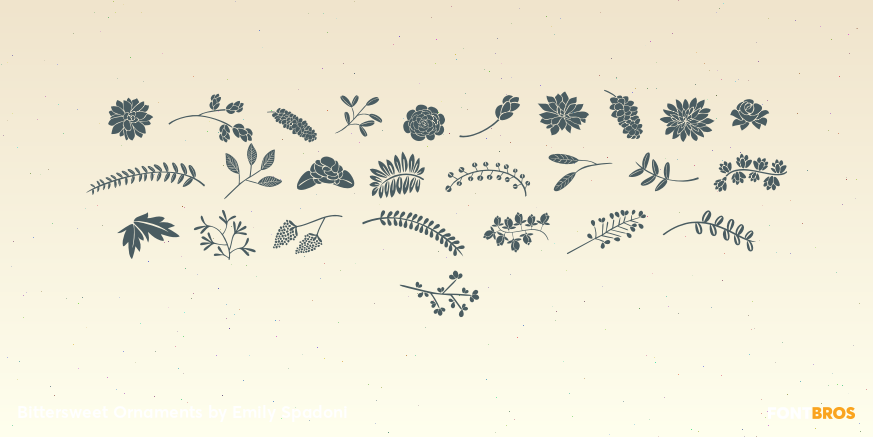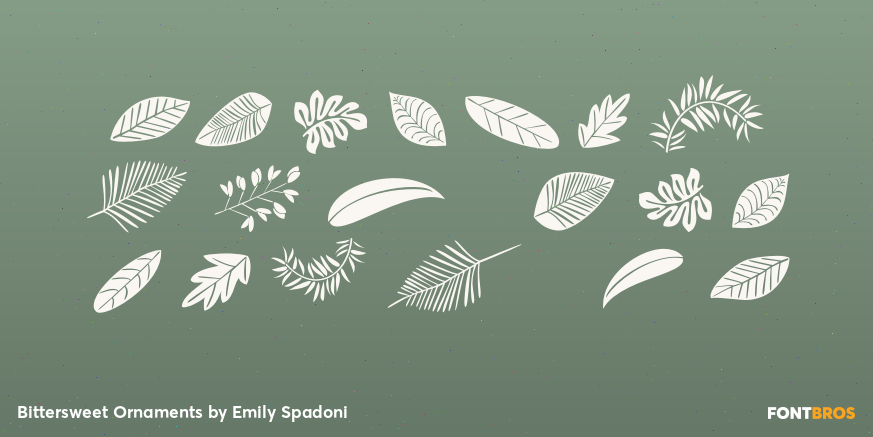
Bittersweet Ornaments
Font Family by Emily Spadoni
Buy NowBittersweet Ornaments are a symbol / dingbat style font file. More than 80 completely different hand-drawn floral elements right at your fingertips - in fact - right on your keyboard! Every single floral element is completely re-sizable and editable. No need for any special design software, as a font these graphics are suitable for even the most basic computer programs. Automatically transparent backgrounds, change the color of fill and stroke, add shadows and dimension, stack and layer leaves and flowers til your heart's content. Use your favorite brushes and actions in Illustrator and Photoshop. But also create in Word! Makes awesome patterns for stencils, stamps, large or small wall art. Stationary, weddings, logos, the possibilities are endless!
I've even made you a PDF ornament map to clearly see what's available as you create.
Hey embroiderers! It's a font! Use these elements in your embroidery software!
Please note there are no letters included.